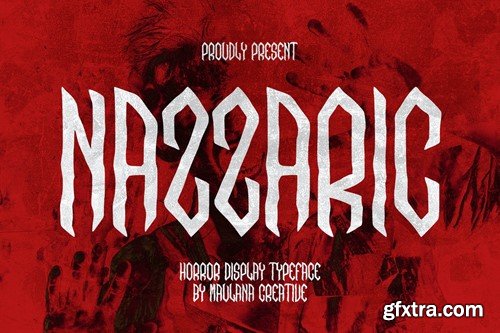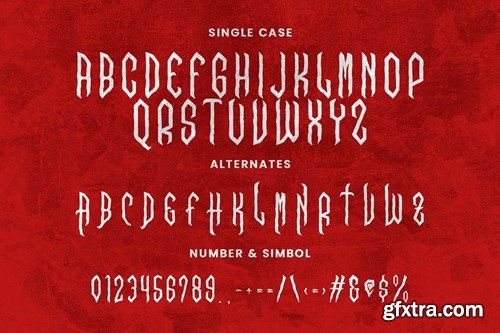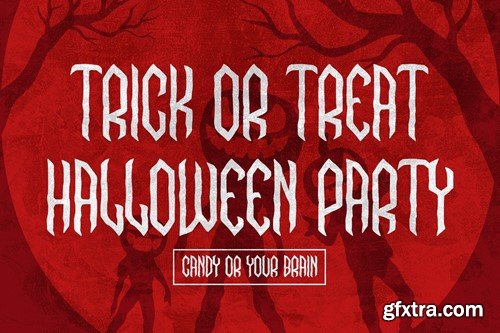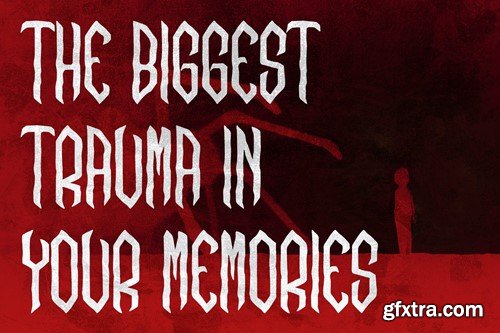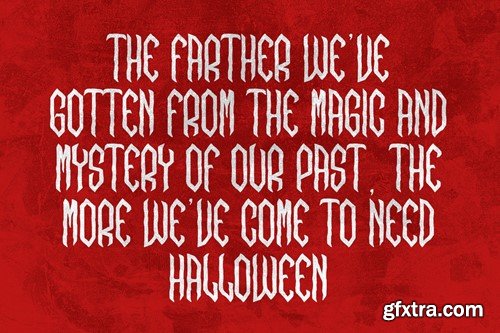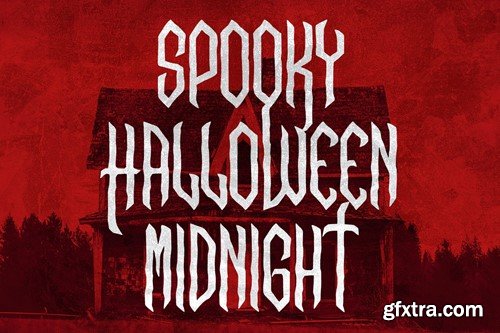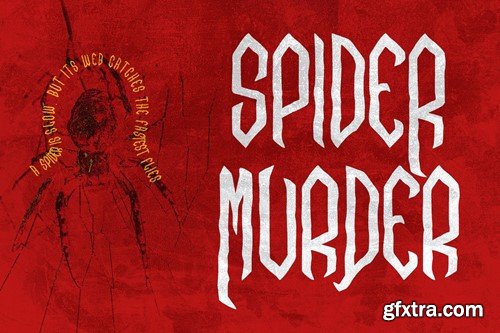
Nazzaric Horror Display Typeface
Nazzaric horror display font. Bold stroke, fun character with a bit of ligatures and alternates. To give you an extra creative work. Nazzaric grunge horror display font support multilingual more than 100+ language. This font is good for logo design, Social media, Movie Titles, Books Titles, a short text even a long text letter and good for your secondary text font with script or serif. Make a stunning work with Nazzaric horror display font. What you get: – Nazzaric (OTF) – Nazzaric (TTF) – Nazzaric (WOFF) Cheers, Maulana Creative